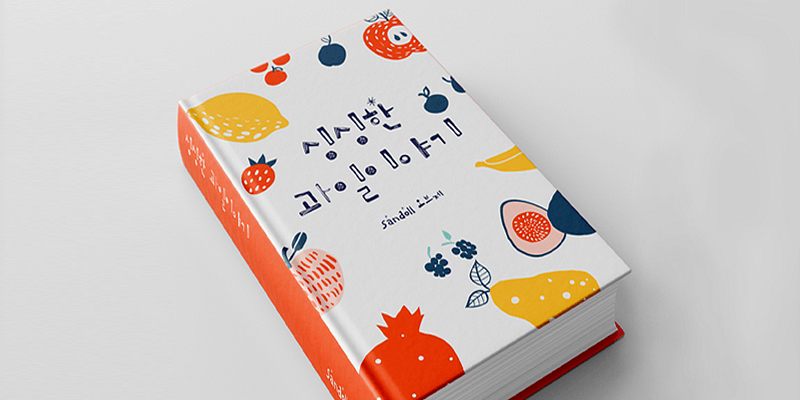
Sandoll Objet presents versatile effects with its texture and Serif differences.
Regular, Serif, and Black can each present oil painting, block printing, and other unique textures, giving the font versatile usage.
Sandoll (산돌) is a leading font foundry in Korea. It has been developing nearly 600 fonts for about 40 years. The foundry has a variety of experiences of multi-language projects such as CJK development and matching Korean and other scripts.